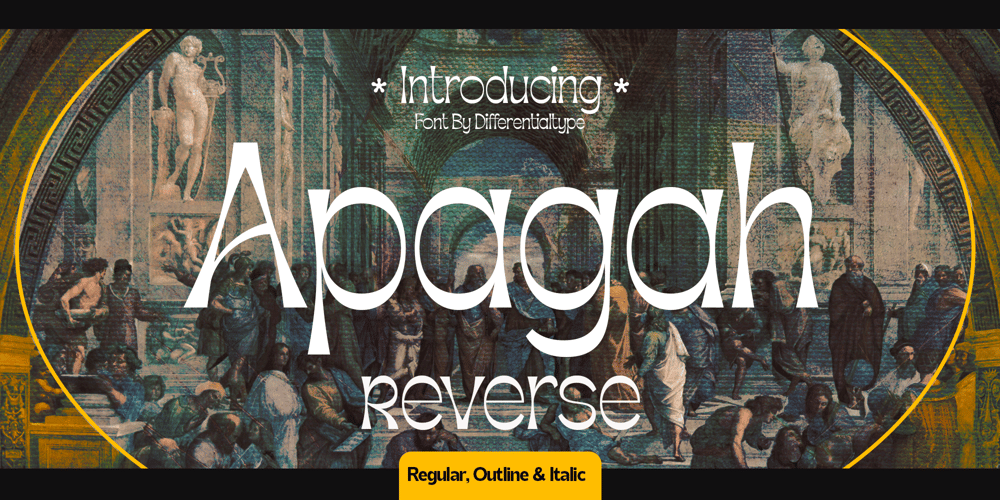
Apagah Reverse Font Family was designed by Sidik Sidik and published by Differentialtype. Apagah Reverse contains 4 styles and family package options. Apagah Reverse is a reverse contrast serif font with a contemporary concept and modern style. Equipped with an alternative with a reverse style too, you can use the uppercase with the lowercase style, and vice versa. This font also has four styles that you can mix and match, to complete the design you create.Crafted with high attention to detail, giving you the best designing experience. Most suitable for poster design, headlines, quote writing, pamphlets, greeting cards, product packaging, book covers, logo types, album covers, etc.